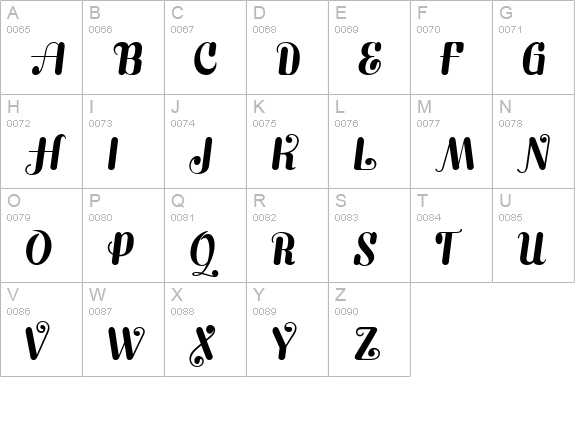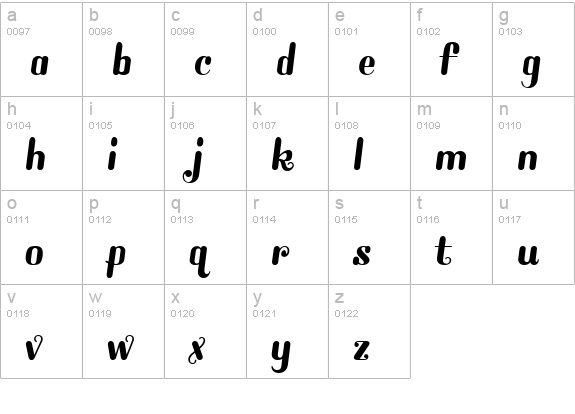
SouthlandJF Font Details
Introducing SouthlandJF, a captivating and versatile font that is sure to make a lasting impression on any design project. With its bold and elegant letterforms, this font exudes a sense of sophistication and modernity. SouthlandJF is the perfect choice for a wide range of applications, from branding and logo design to editorial layouts and website headers. Its clean and crisp lines ensure legibility at any size, while its unique character shapes add a touch of personality and charm. But what sets SouthlandJF apart is its accessibility. This incredible font is not only visually striking, but it is also free for personal and commercial use. Yes, you read that right - free! Now you can elevate your designs without breaking the bank. Downloading SouthlandJF is a breeze. Simply head over to FontsMarket.com and find this gem among their vast collection. Once you have it, the possibilities are endless. Whether you're a professional designer or a creative enthusiast, SouthlandJF will empower you to bring your visions to life. So why wait? Don't miss out on the opportunity to enhance your projects with this remarkable font. Download SouthlandJF today and let your creativity soar!